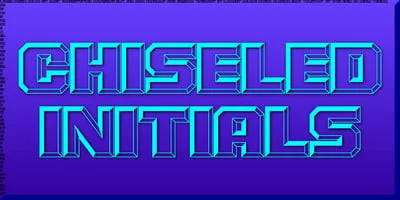
Chiseled Initials Font
The Chiseled Initials Font is a striking and powerful display typeface, specifically designed to emulate the robust, three-dimensional effect of letters carved into stone or metal, often with a classic, monumental feel. Imagine its strong, architectural characters gracing the cornerstone of a prestigious building, adding an authoritative and enduring touch to university seals and official documents, or creating impactful titles for historical documentaries and commemorative plaques. Its precise lines, deep shadows, and an undeniable sense of permanence also make it an excellent choice for luxury branding, elegant signage, powerful advertising headlines, and any design where gravitas, tradition, and a lasting impression are paramount. Whether you're aiming for a classic, monumental look or a sophisticated design with powerful visual depth, Chiseled Initials Font delivers with its unique artistry, ensuring your visuals are both distinguished and truly unforgettable.
What makes Chiseled Initials Font so exciting is its remarkable ability to instantly convey a sense of weight, permanence, and historical significance. It brings the tactile quality of a carved inscription directly to digital and print media, offering a visual metaphor for enduring quality and established authority. This font isn't just about conveying text; it's about making a profound statement, evoking a sense of heritage and meticulous craftsmanship. It truly allows designers to craft narratives that are visually arresting and intellectually resonant, making it an invaluable asset for those who want their designs to speak with an authentic, powerful voice that leaves a lasting legacy.
The Chiseled Initials Font family is typically structured as a specialized collection of decorative initial caps rather than a comprehensive text font. While it might only feature a single "weight" (its inherent chiseled style), its "family" is expressed through the variety of unique designs for each letter of the alphabet, or variations in the chiseled effect. You might find:
Uppercase/Capital Letters: Each letter is a unique, three-dimensional design, forming the core of the font.
Alternative Designs: Sometimes, different stylistic sets or even separate fonts might offer variations on the chiseled effect, such as different shadow directions or levels of depth, providing a broader range of options for similar monumental aesthetics.
Contextual Alternates/Ligatures (less common for initials): While not typically connecting like a script, some might offer subtle variations if designed to be placed near other elements, ensuring the chiseled effect remains consistent and impactful.
These elements combine to provide designers with the flexibility to select the perfect monumental initial to crown their project, ensuring a consistent and historically resonant aesthetic across prominent opening elements.